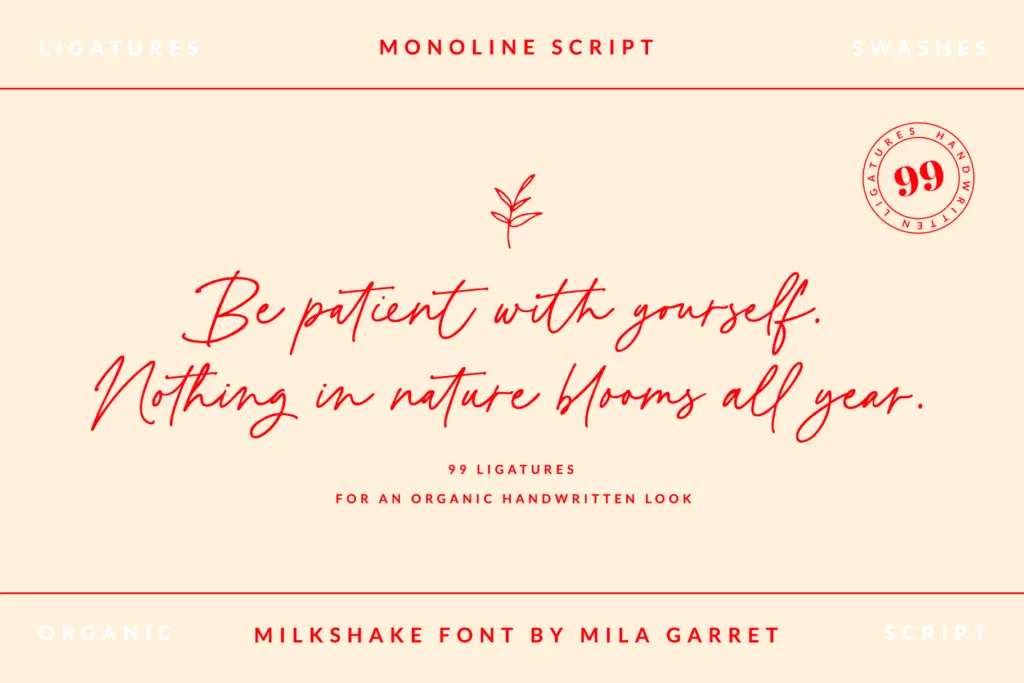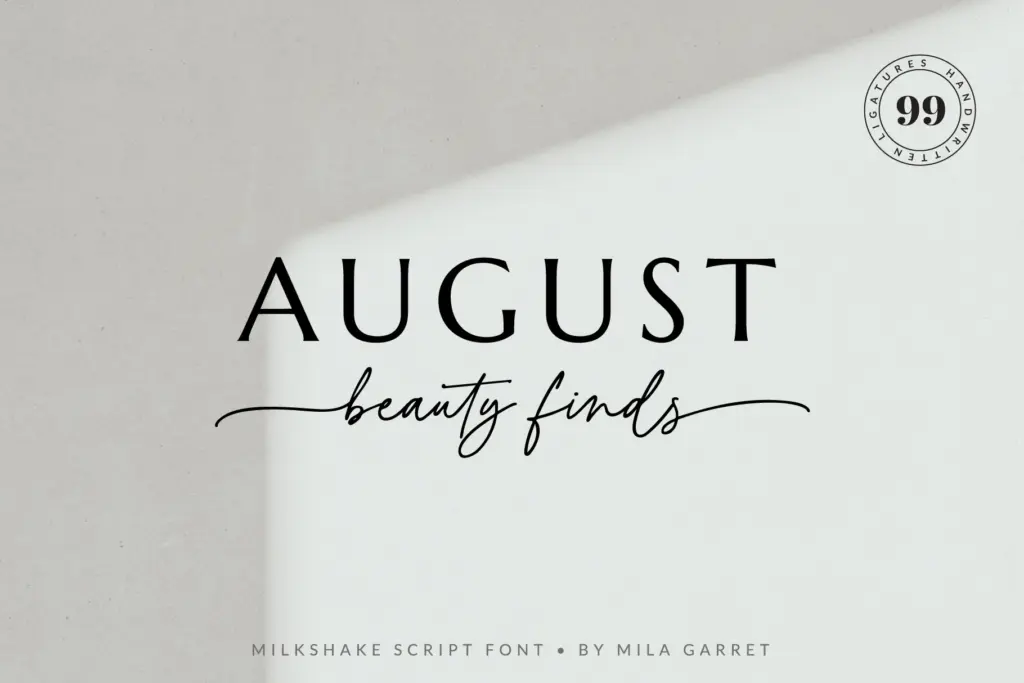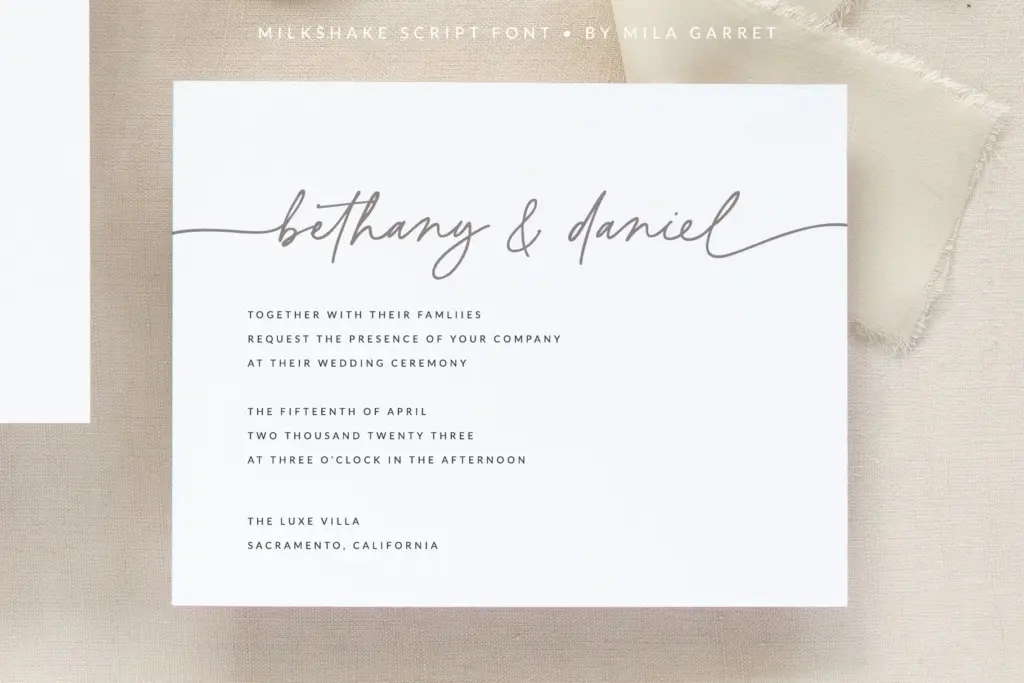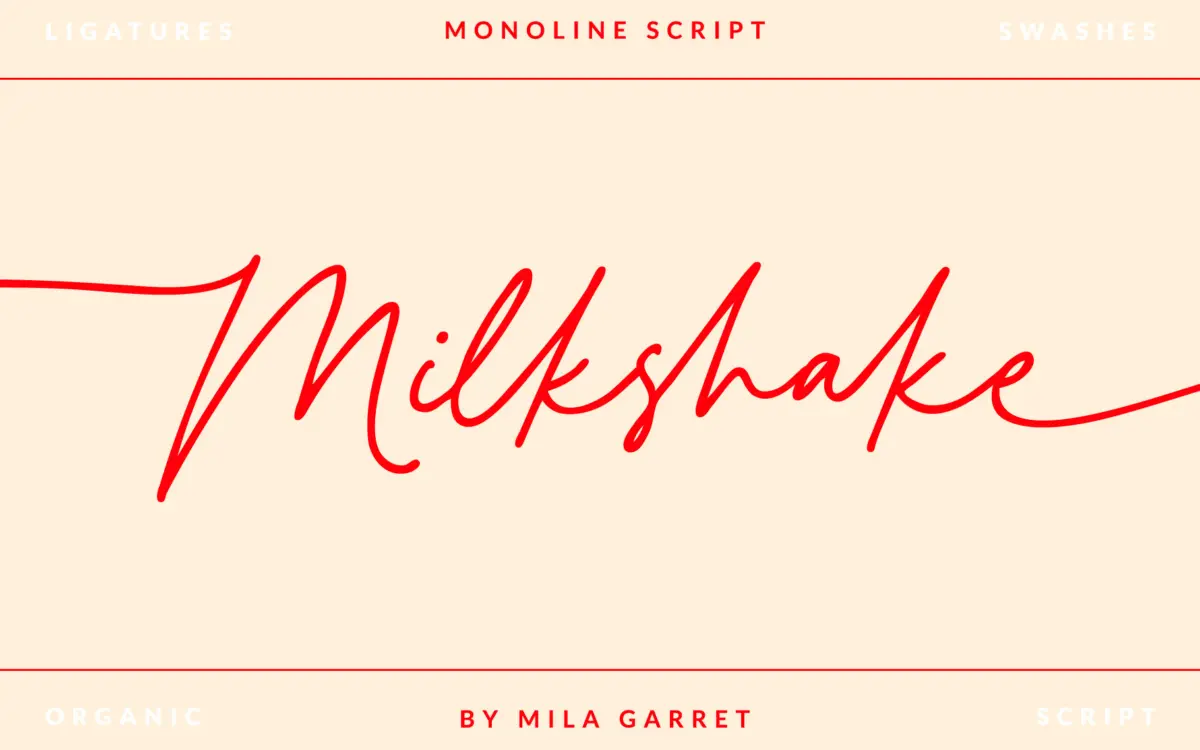
Milkshake Script belongs to the loose, felt-tip family of handwritten scripts that have become the default look for anything wanting to feel warm, small-batch or hand-touched. The strokes have a consistent, slightly springy weight rather than the tapered contrast of a formal calligraphic script, which puts it closer to genuine handwriting than to pointed-pen lettering. Letters lean forward at an easy, unforced angle and the baseline drifts a little from letter to letter, which is the effect that sells the handmade illusion and also the thing that limits how it can be used.
What separates it from a generic script are the swash sets bolted onto the core alphabet: swashed lowercase for word beginnings and endings, and a swashed uppercase set for openers. These give a designer room to dress up a word without redrawing anything by hand — set the base word, then swap in a swash cap or a flourished terminal where the composition needs a flick of energy.
The build is generous for a script in this price bracket. Beyond the standard alphabet and punctuation there are separate beginning and ending swash sets for lowercase, a swashed uppercase set, and 99 handwritten ligatures — the ligatures being the real workhorse here, since scripts like this live or die on whether common letter pairs (th, st, ing, double letters) connect without an awkward collision or a gap. PUA encoding means those extras sit on their own keyboard-accessible codepoints, so you’re not stuck hunting through OpenType feature panels in software that doesn’t support them; you can access swashes and ligatures with a standard text tool.
Multilingual support covers the accented characters used across most Western European languages, plus currency symbols, so setting names or short phrases in French, German, Spanish or Scandinavian languages shouldn’t require substitutions. There’s no indication of numeral styles or extended punctuation like fractions, so treat it as built for words and short phrases rather than tabular or numeric-heavy work.
This is a font for the moment in a layout where you want a handwritten signature rather than a headline. Wedding stationery is the obvious fit — a bride and groom’s names, a save-the-date line, a thank-you card — where the irregular baseline reads as personal rather than sloppy. It also suits packaging and small-batch branding where a script wordmark needs to feel approachable: jam labels, bakery logos, candle branding, anything trading on a handmade or feminine tone.
It’s less useful for body copy or anything that needs to be read quickly at small sizes — the joins and swash flourishes ask for a slower read, and at caption size the letterforms start to clot. It also isn’t a neutral workhorse: the casual, slightly juvenile character of the strokes commits a brand to a specific mood, so it won’t sit well next to anything trying to read as serious, technical or corporate. Used as one accent word inside a larger layout — set against a clean sans for supporting text — it does its job well; asked to carry a whole page of copy, it will tire the eye.
- 99 ligatures handle common letter pairs cleanly instead of leaving awkward joins
- PUA encoding makes swashes and alternates accessible without OpenType-aware software
- Separate beginning and ending swash sets give real compositional flexibility for short phrases
- Loses clarity fast at small sizes or in long passages of text
- The casual, uneven baseline commits any brand to an informal, feminine tone with little room to dial it back
Milkshake Script is a competent, well-built casual handwritten script with a genuinely useful ligature set and easy-access swashes. It's best treated as an accent typeface for short phrases rather than a body-copy workhorse, and its warm, informal mood limits it to branding that wants exactly that tone.